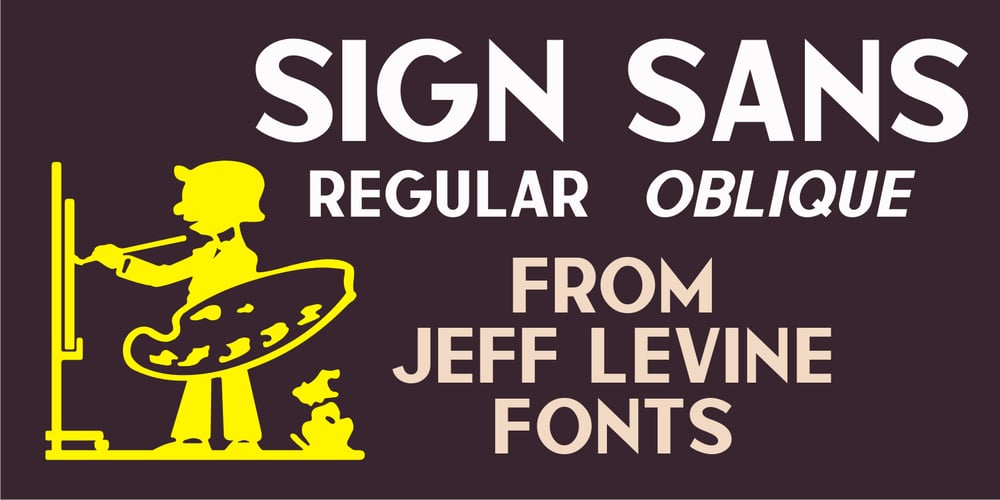
Sign Sans JNL Font Family was designed by Jeff Levine and published by Jeff Levine. Sign Sans JNL contains 2 styles and family package options. The original source of design for Sign Sans JNL was an image online of an old New York drinking establishment called the Lenox Lounge. The metal channels encasing the neon had an unusual “feel” to some of the letters. While the original E,G and U of the sign looked “interesting”, they didn’t quite fit the font’s layout. Those letters were scrapped for more traditional versions of them.